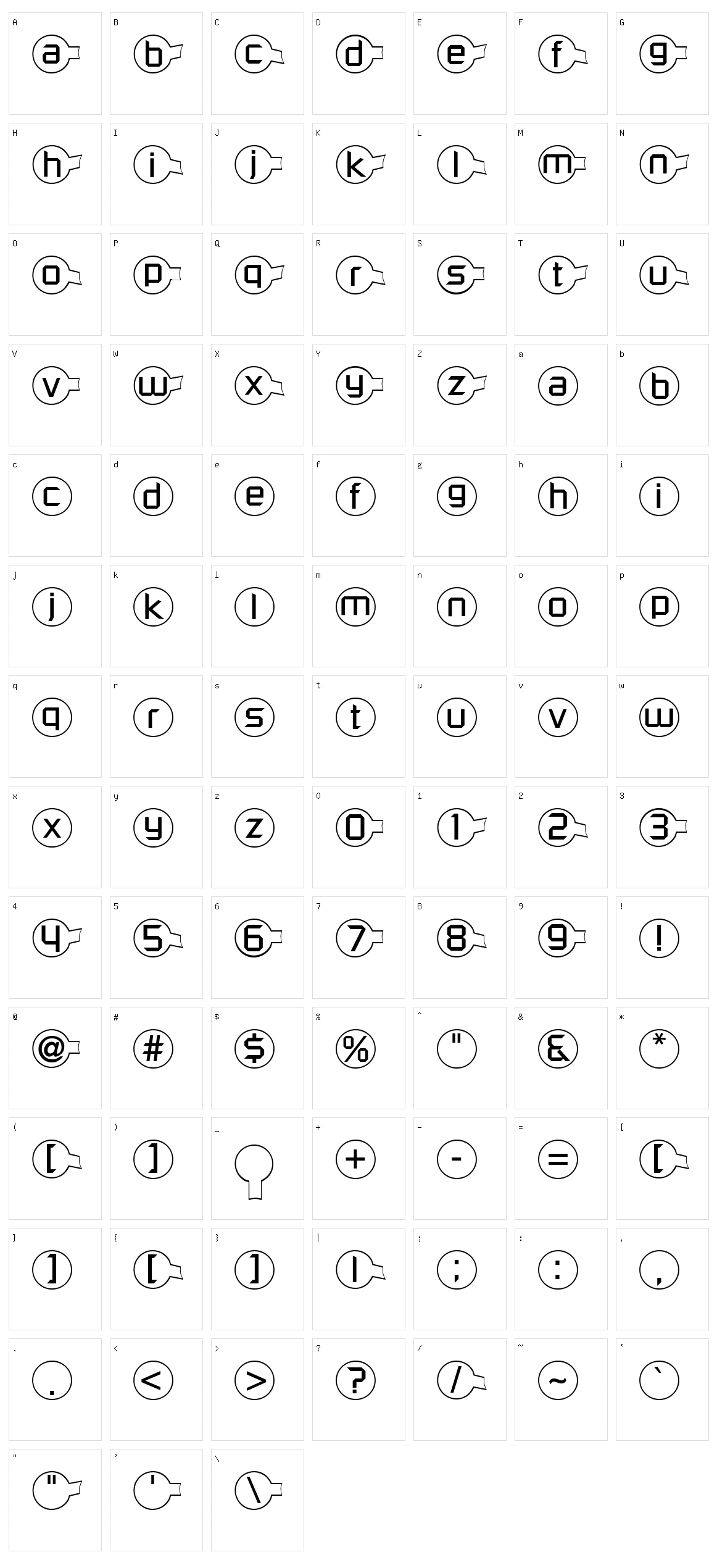
Molecular
Designed by: Randy Ford
Molecular Font
Designed by ARRF
Type in all caps and use the lowercase letters for the end,
view the enclosed .gif graphic to see how to "end" numbers.